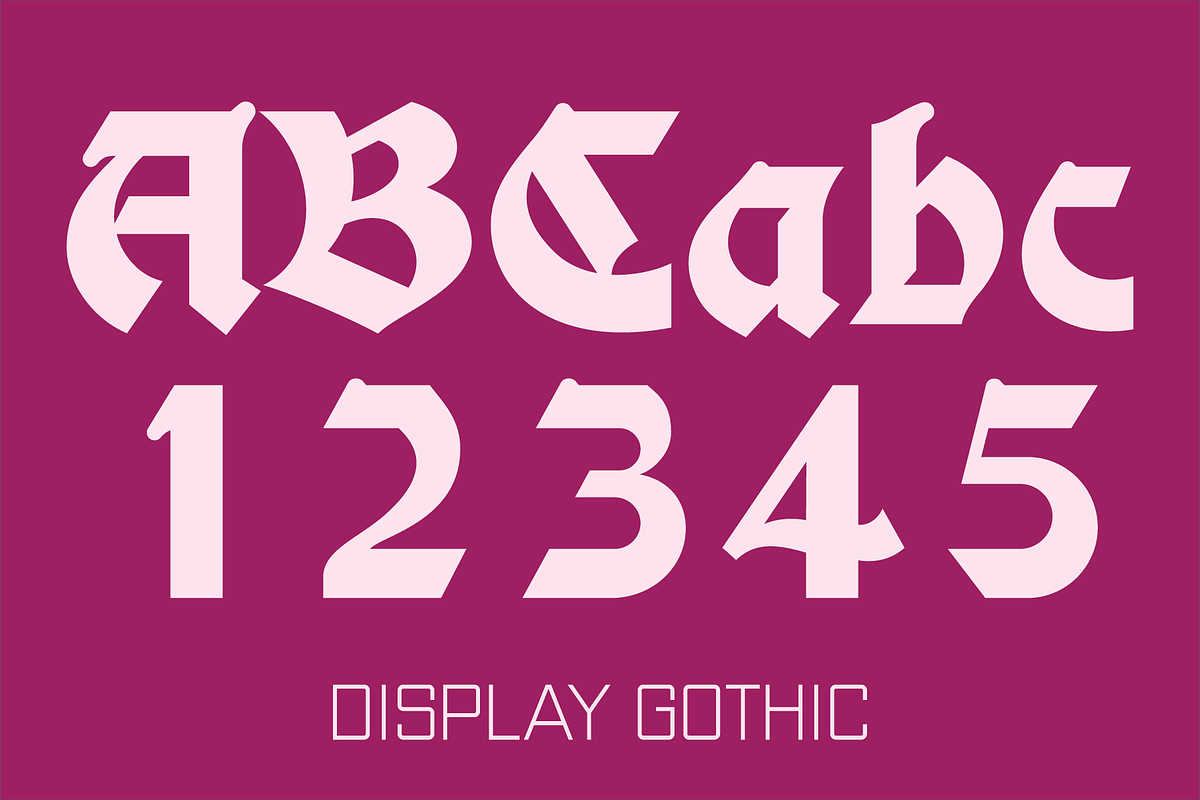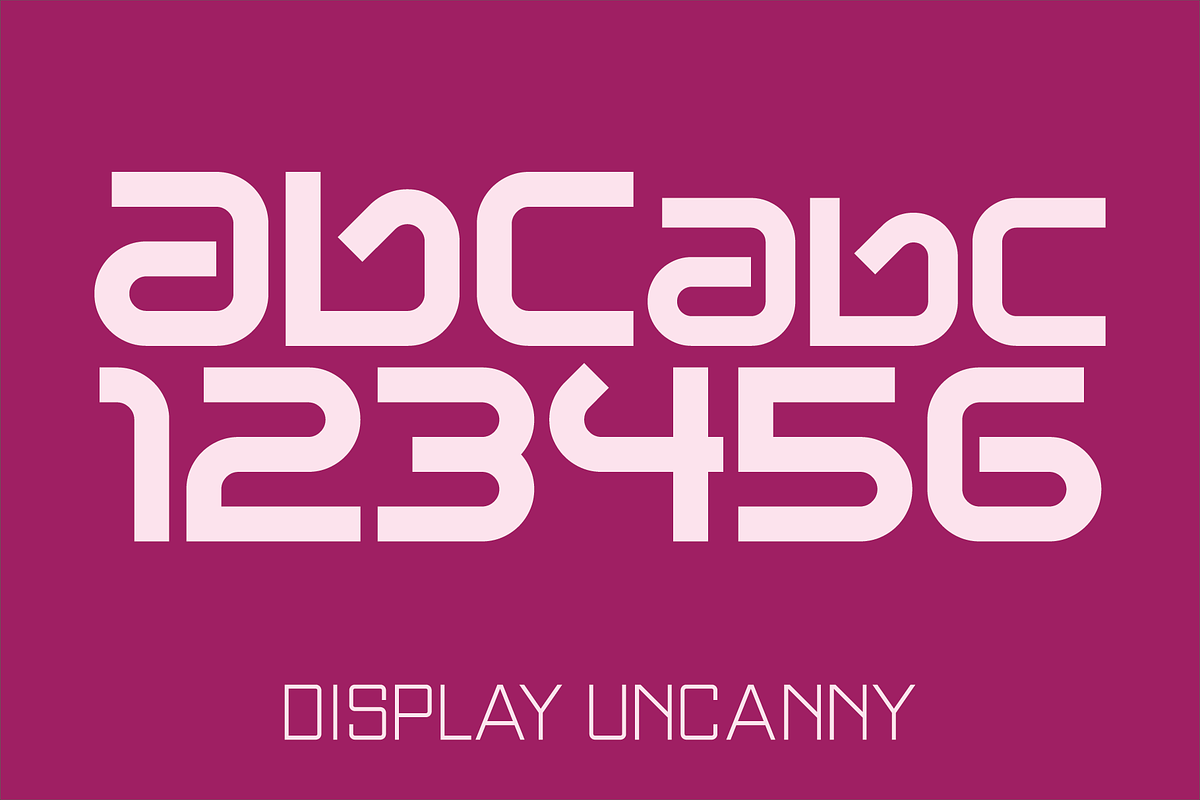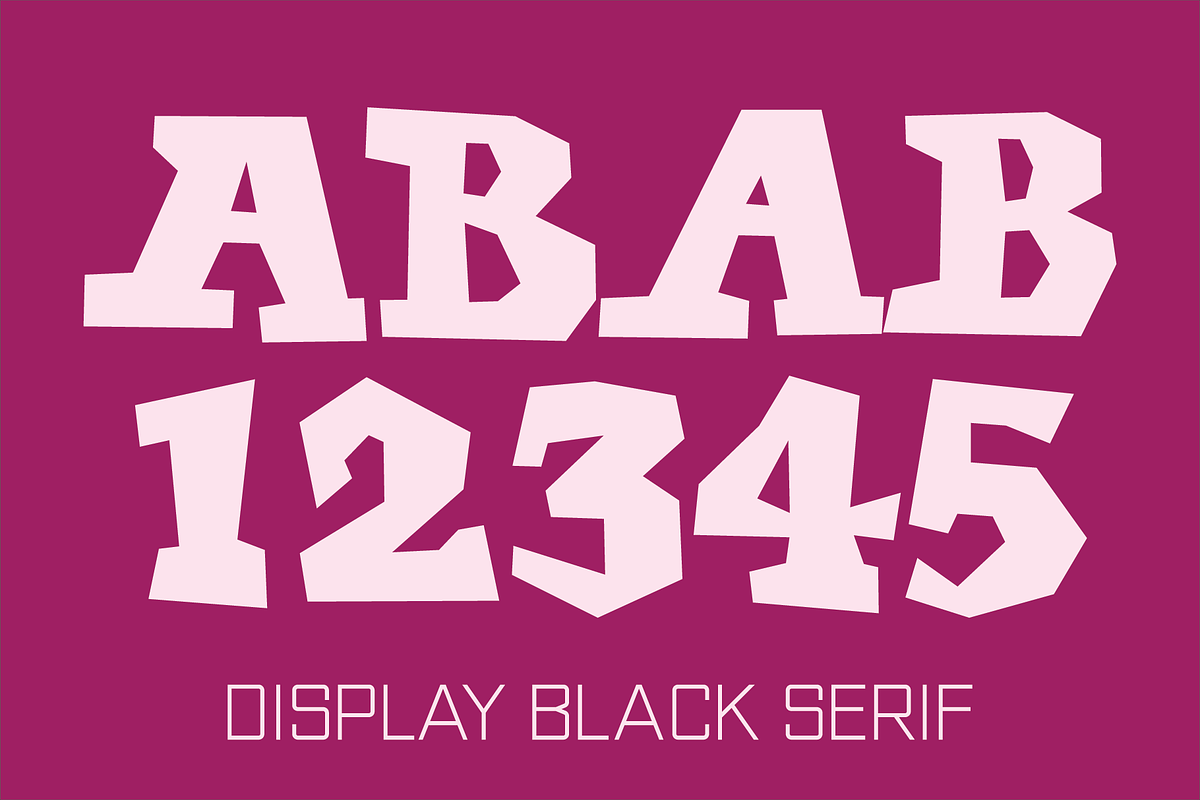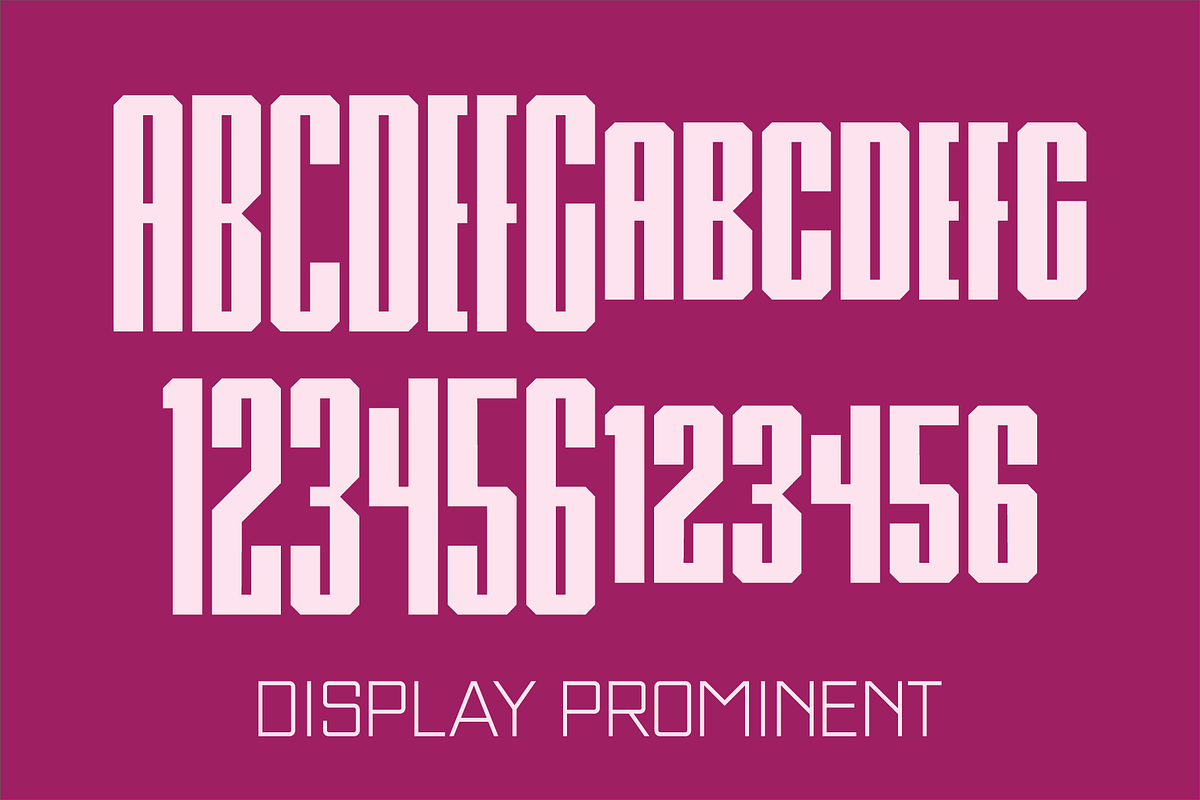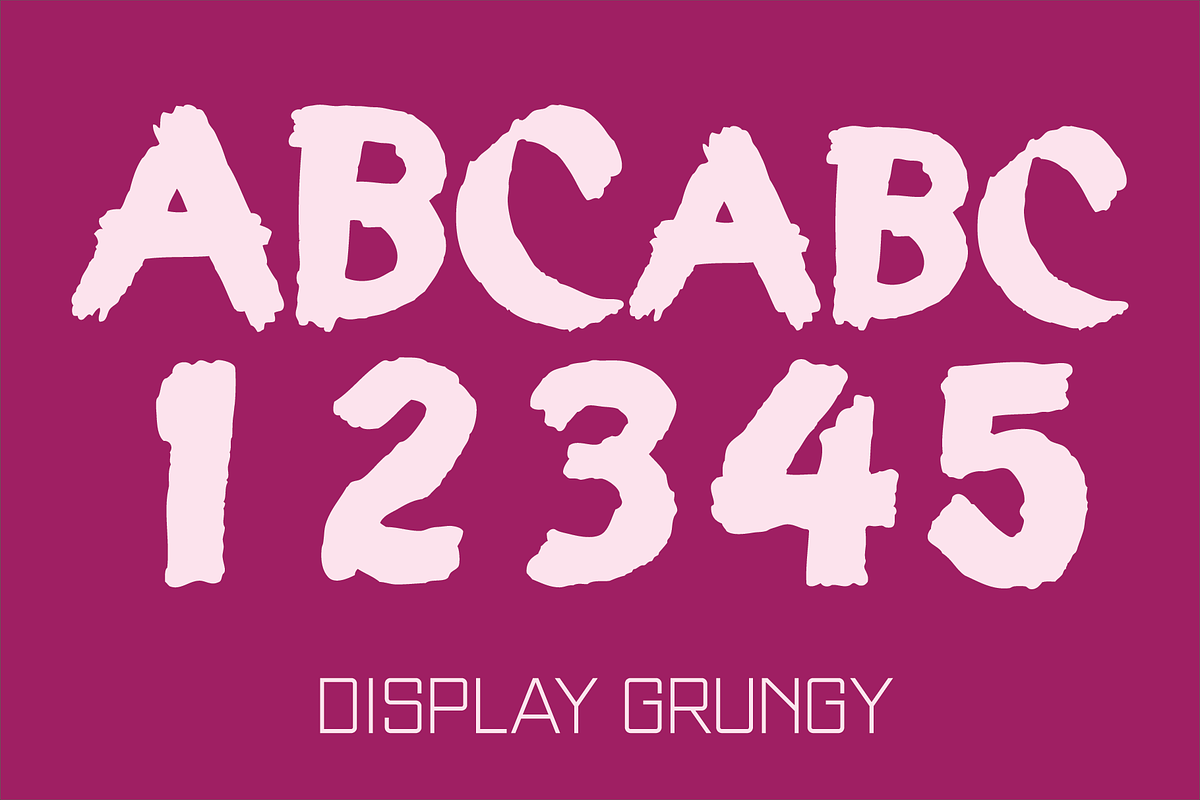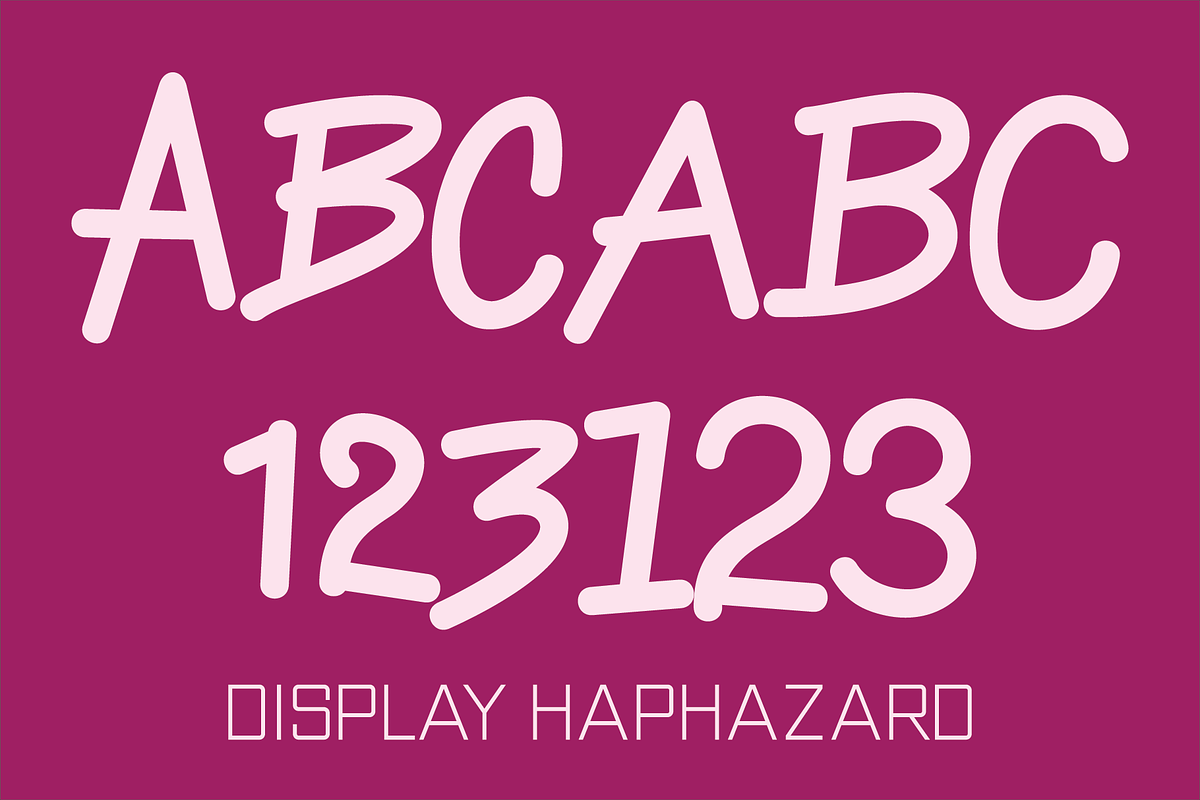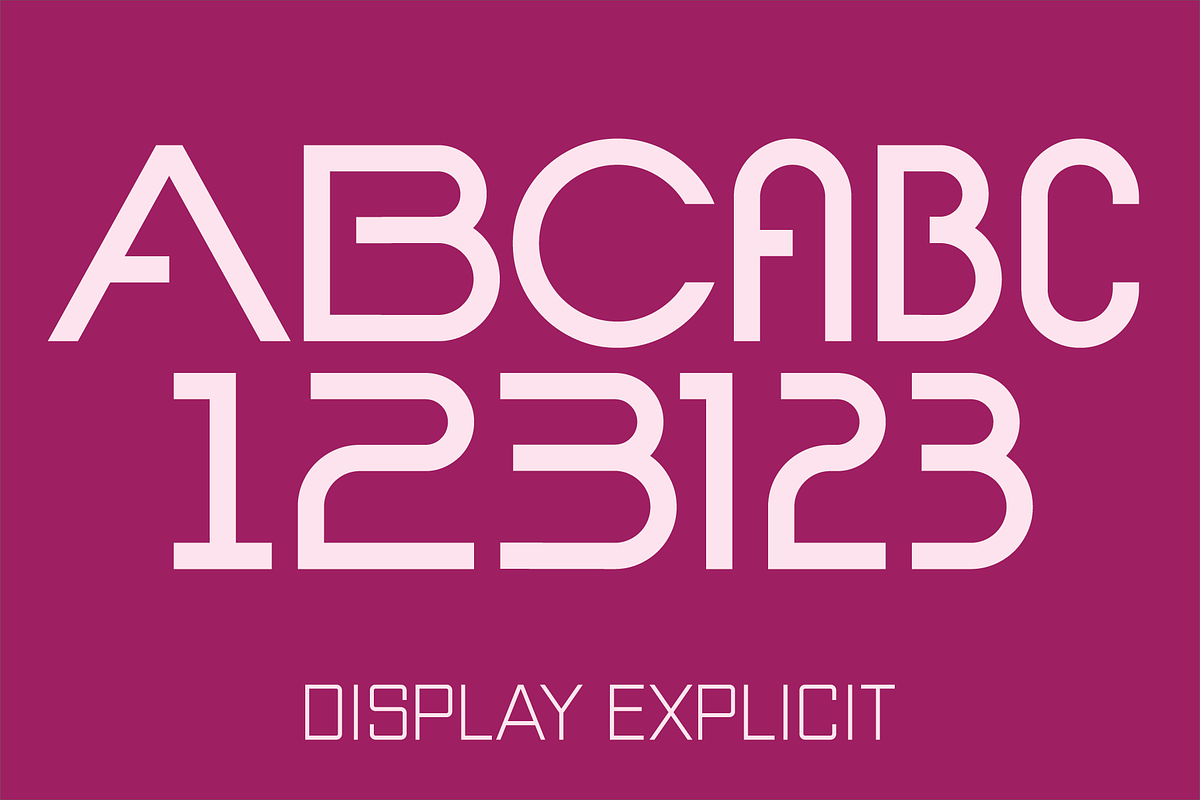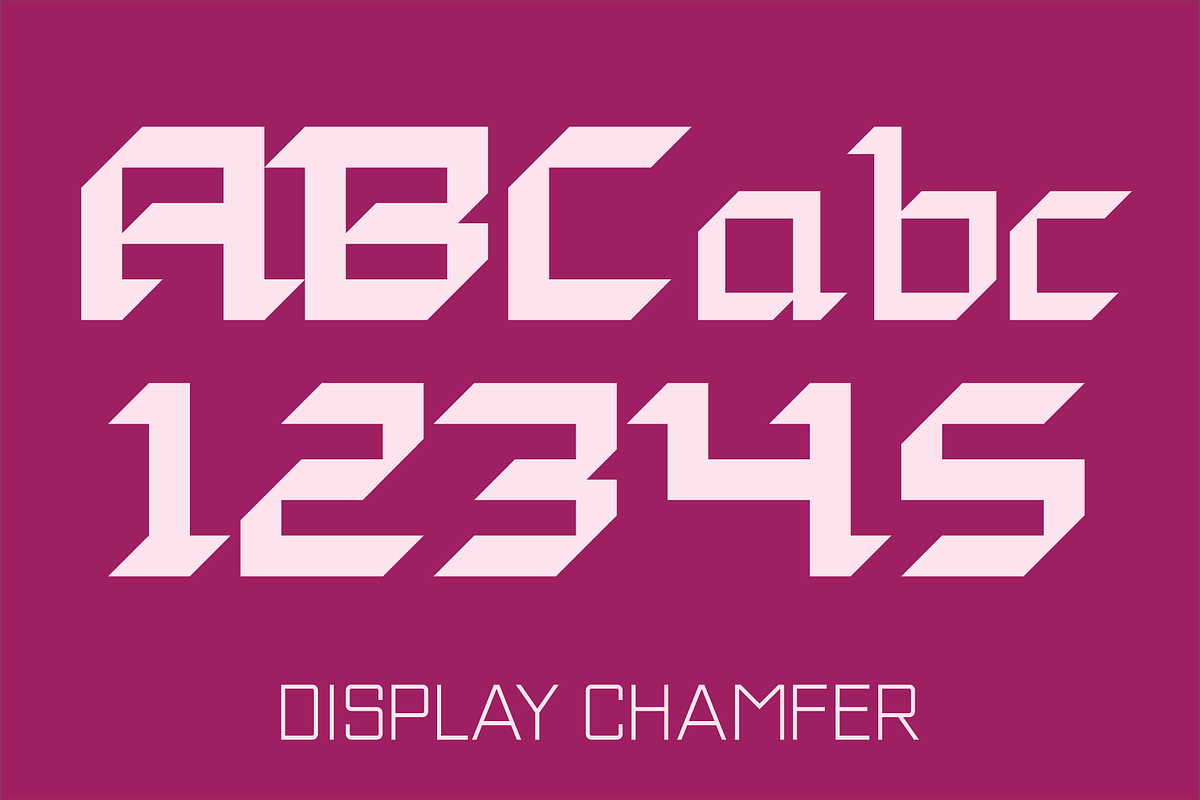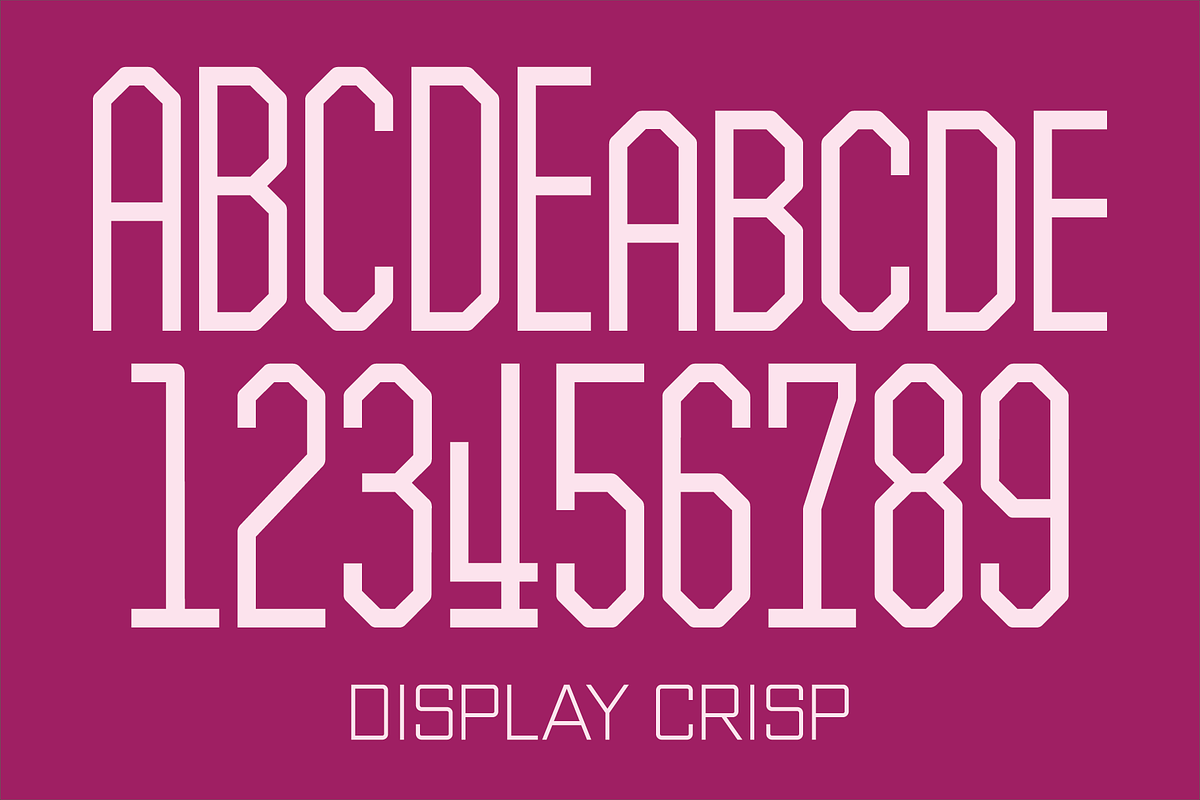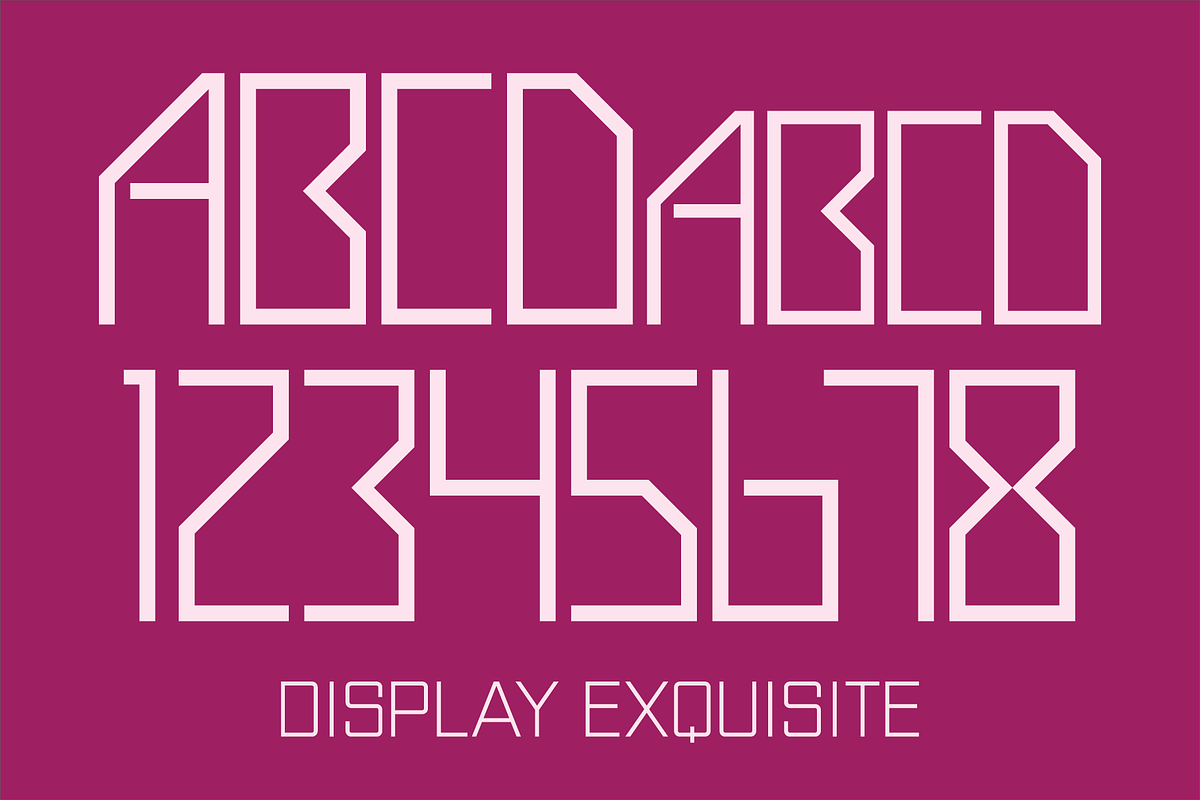
Display Font Collection
The Display fonts are not intended for text use. They were designed specifically for display, headline, logotype, branding, and similar applications.
Display Ardent has a lowercase alphabet, numbers, dollar, pound and euro signs, and basic punctuation. For convenience, the lowercase alphabet characters are repeated under the shift set keys.
Display Black Serif has an uppercase alphabet located under the character + shift keys and an alternate uppercase under the character set keys; numbers, dollar, pound and euro signs, and basic punctuation.
Display Brutal has has an uppercase alphabet, numbers, dollar, pound and euro signs, and basic punctuation.
Display Carlos has an uppercase and lowercase alphabet, numbers, dollar, pound and euro signs, and basic punctuation.
Display Chamfer has an uppercase and lowercase alphabet, numbers, dollar, pound and euro signs, and basic punctuation.
Display Crisp has an uppercase and small caps alphabet, numbers, dollar, pound and euro signs, and basic punctuation.
Display Explicit has an uppercase alphabet located under the shift+character set keys with alternate characters for A, B, C, D, E, F, G, J, K, M, N, P, Q, R, and W located under the option+character and shift+option+character set keys. Under the character set keys are condensed uppercase characters. There are sets of numbers matching each of the uppercase sets, dollar, pound and euro signs, and basic punctuation.
Display Exquisite has an uppercase and small caps alphabet, numbers, dollar, pound and euro signs, and basic punctuation.
Display Gothic has an uppercase and lowercase alphabet, numbers, dollar, pound and euro signs, and basic punctuation.
Display Grungy has an uppercase and small caps alphabet, numbers, dollar, pound and euro signs, and basic punctuation.
Display Haphazard has an uppercase alphabet located under the character + shift keys and an alternate uppercase under the character set keys; numbers, small numbers, dollar, pound and euro signs, and basic punctuation.
Display Intense has an uppercase and small caps alphabet, numbers, small numbers, dollar, pound and euro signs, and basic punctuation.
Display Plump has an uppercase alphabet, numbers, dollar, pound and euro signs, and basic punctuation. For convenience, the uppercase alphabet characters are repeated under the character set keys.
Display Prominent has an uppercase alphabet, there are small caps that are centered horizontally on the tall caps under the character set keys, numbers, small numbers, dollar, pound and euro signs, and basic punctuation.
Display Robust has an uppercase alphabet, numbers, dollar, pound and euro signs, and basic punctuation. For convenience, the uppercase alphabet characters are repeated under the character set keys.
Display Uncanny has the same A to Z characters located under the shift+character set and smaller ones under the character set keys; numbers, dollar, pound and euro signs, and basic punctuation.
Display University has the same A to Z characters in solid form under the shift+character set keys and outline form under the character set keys. The numbers, dollar, pound and euro signs, and basic punctuation are in solid and outline characters also.